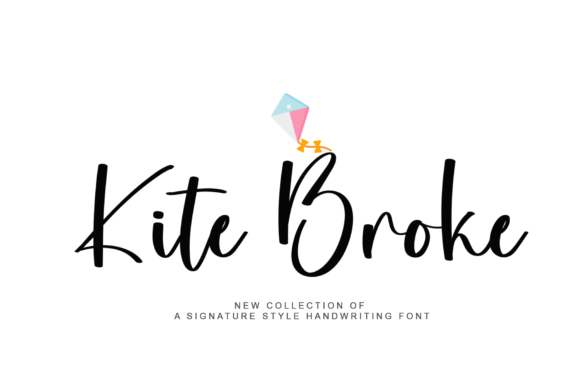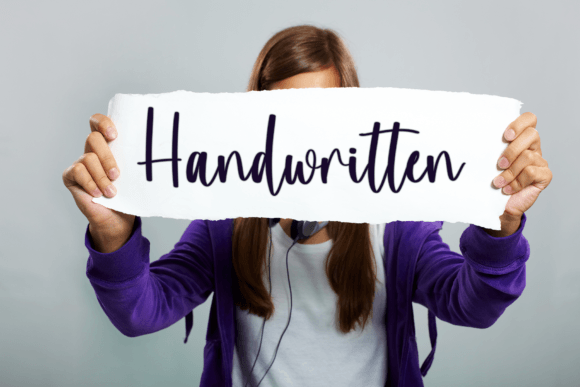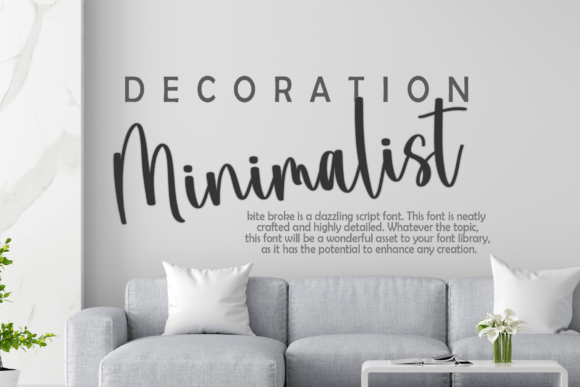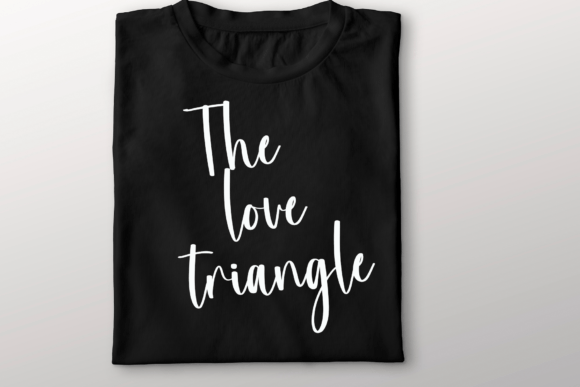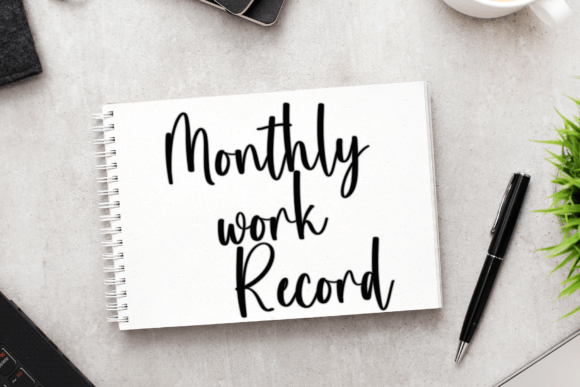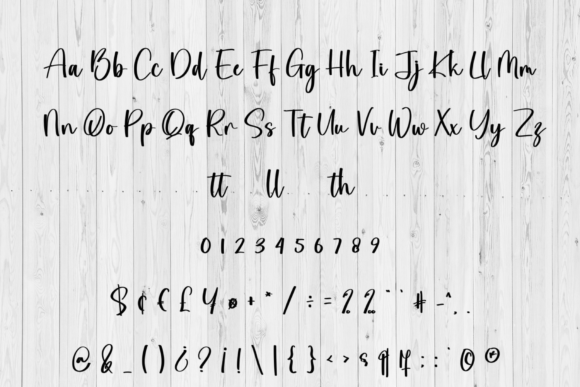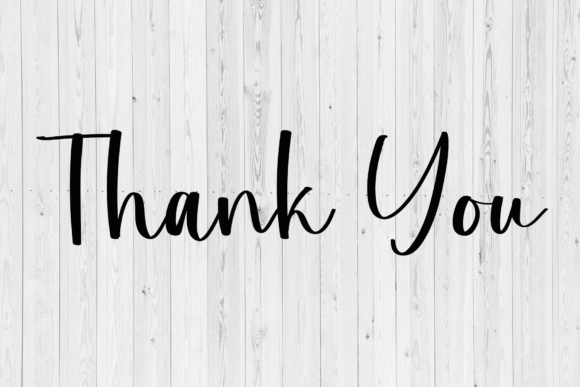
Soar to New Heights with Kite Broke Font
There’s nothing quite like the rush of inspiration that comes from watching a kite dance in the wind. The way its delicate threads weave in and out of the breeze, leaving a trail of elegance in its wake, is a true marvel. It’s moments like these that spark creativity and inspire us to push the boundaries of our art.
For designers, the quest for the perfect font is a constant one. That’s why we’re excited to introduce Kite Broke Font, a stylish handwritten font that embodies the timeless charm of classic calligraphy. With its balanced and varied strokes, this font is the perfect addition to any project, from elegant invitations to modern marketing campaigns.
Kite Broke Font is more than just a pretty face – it’s a powerful tool that can elevate your designs and leave a lasting impression on your audience. Whether you’re a seasoned pro or just starting out, this font is sure to become a trusted companion in your creative journey.
Kite Broke Font Key Features
- Font Family: Kite Broke Font is a unique display font designed for various creative applications.
- Font Size: Offers a range of font sizes to accommodate different design requirements, from small captions to large headlines.
- Resolution: Designed for high-resolution displays, ideal for use in digital applications such as websites, social media, and mobile devices.
- Unique Characteristics: Features an eclectic mix of geometric and organic shapes, creating a visually striking and attention-grabbing effect.
- Language Support: Supports a wide range of languages, including Latin, Cyrillic, and Greek alphabets, making it a versatile font for global applications.
Kite Broke Font Review
At first glance, I thought “Kite Broke” was going to be a standard, run-of-the-mill sans-serif font. But, ✨ as I dug deeper, I found some interesting things. The font’s unique combination of rounded and sharp edges creates a visually appealing aesthetic that sets it apart from other fonts in its category.
Some of the features that I appreciate about Kite Broke include:
- ✨ Wide range of language support, making it a great option for international projects.
- ✨ Available in a variety of weights and styles, giving designers flexibility when it comes to typography.
- ⚠️ Kite Broke may not be the best choice for projects that require a highly stylized or custom font.
- ⚠️ Some users may find the font’s rounded edges to be a bit too “safe” or generic.
Overall, I’d say Kite Broke is a solid, middle-of-the-road font that’s suitable for a wide range of projects. While it may not blow anyone away with its unique features, it’s a reliable choice that gets the job done.
Getting the Most Out of Kite Broke Font
For the best results, use the Kite Broke font in bold or italic styles to add emphasis to your text. You can also pair it with other fonts to create a unique and eye-catching design.
The Kite Broke font is perfect for creative and artistic projects, such as:
- Poster design
- Graphic novels
- Typography-based art